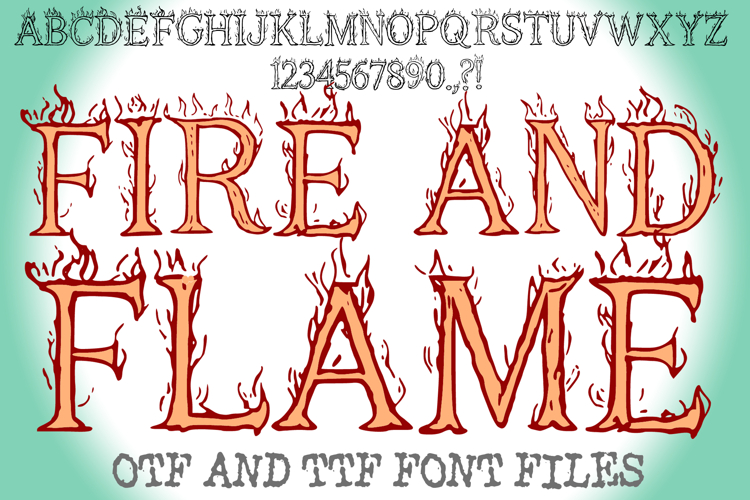
Fire and Flame Alphabet Lettering ABC Text Font OTF
A unique style font where you can create your own words and colour them to your vision!
Contains OTF and TTF file. Capital letters , . ? ! and numbers only.